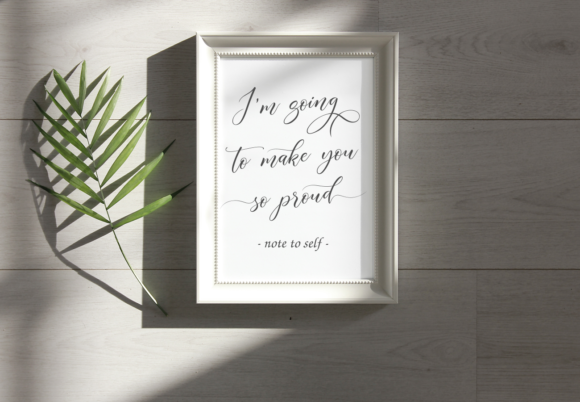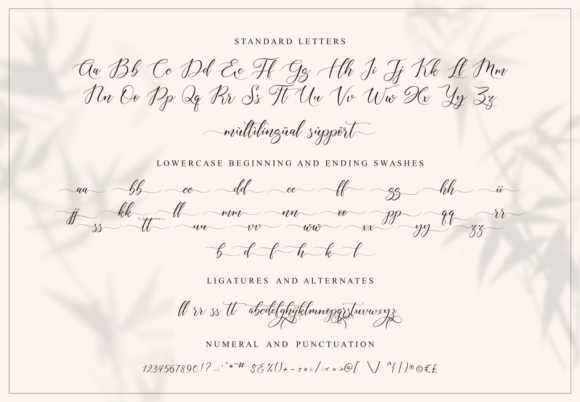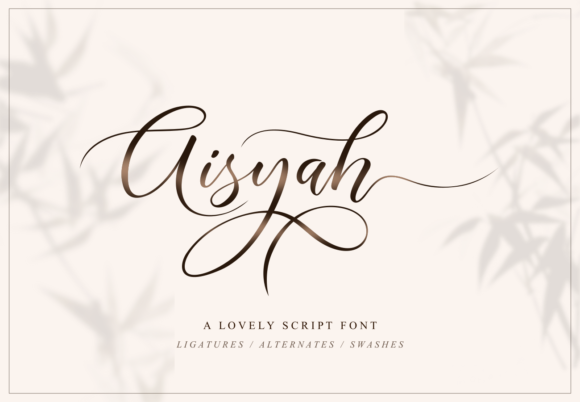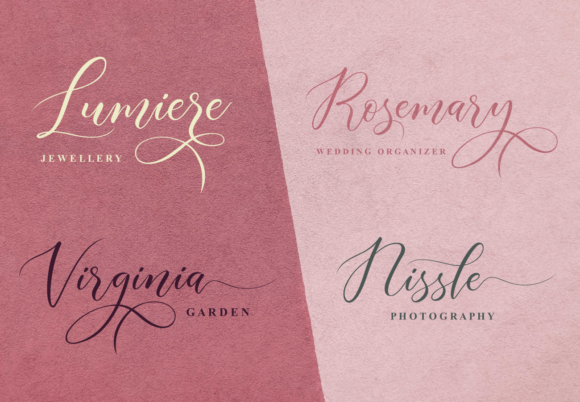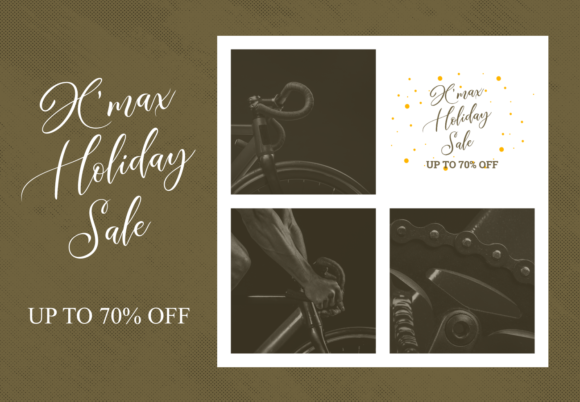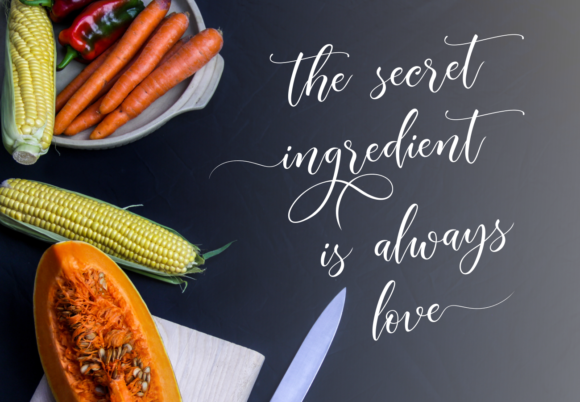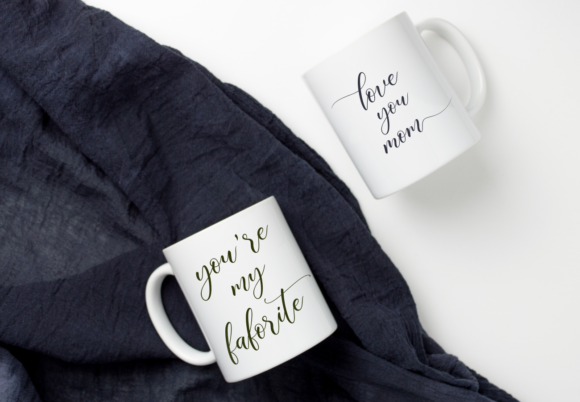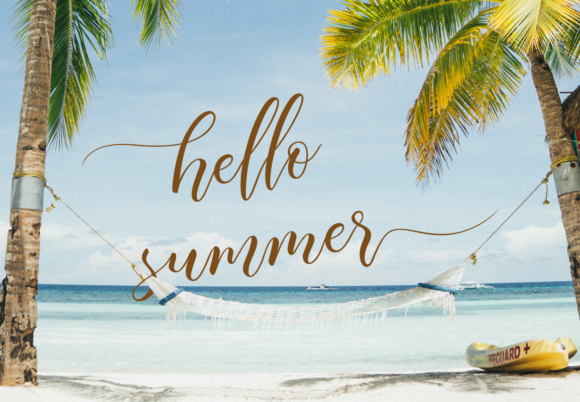
Aisyah Font
About Aisyah Font
The Aisyah is a beautiful and elegant contemporary font with an incredibly delicate feel. It will effortlessly elevate any design project with its timeless sophistication.